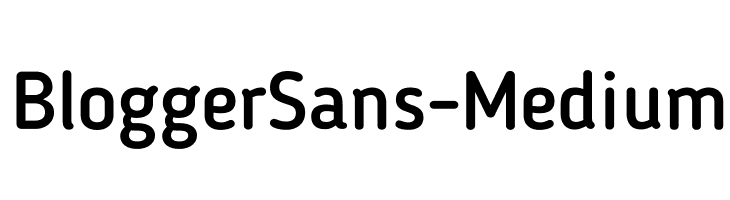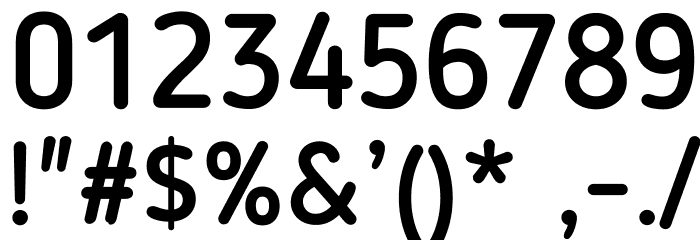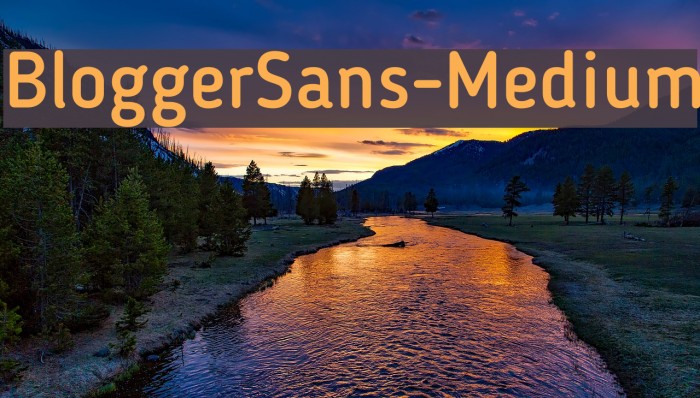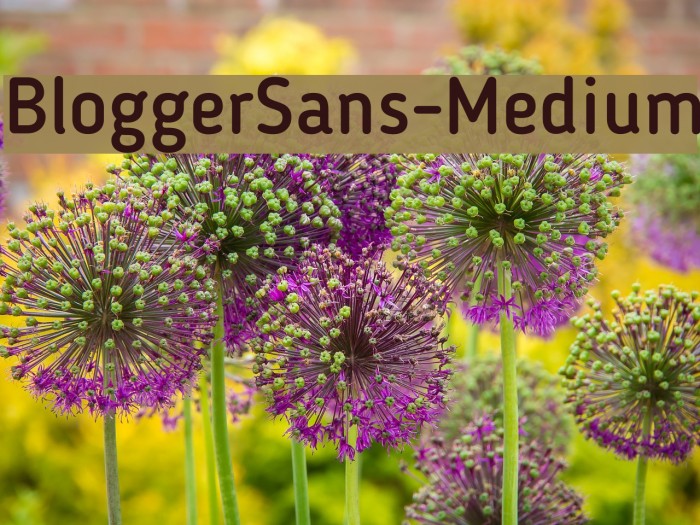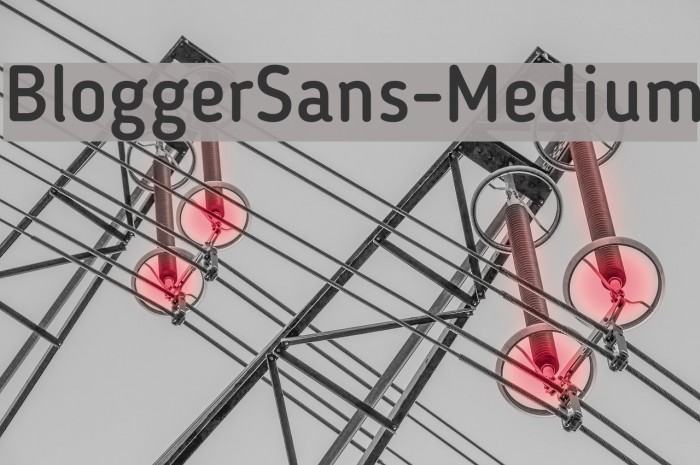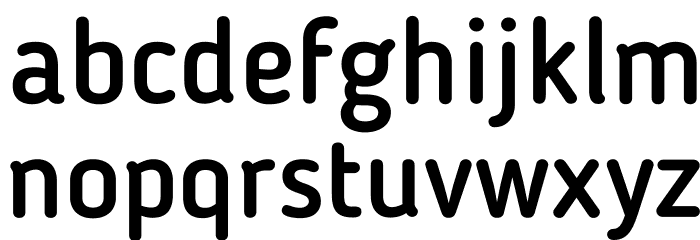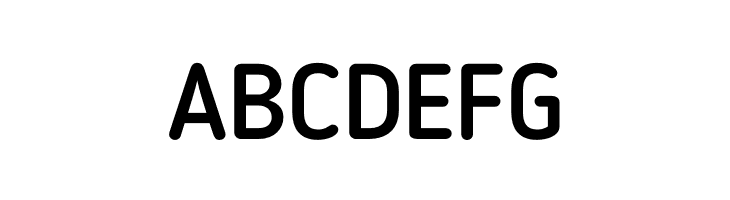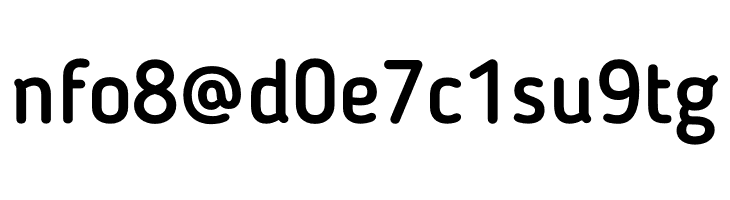
BloggerSans-Medium Font
BloggerSans-Medium Description
This font features a clean and modern sans-serif design with rounded edges that give it a friendly and approachable appearance. The characters are evenly spaced, providing excellent readability across both uppercase and lowercase letters. The numerals are clear and distinct, making them suitable for various applications. The special characters maintain the same rounded style, ensuring consistency throughout the typeface. Its medium weight strikes a balance between light and bold, making it versatile for different design needs.
A modern, rounded sans-serif font with medium weight and excellent readability from Uncategorized fonts.
- Proposed Projects: Ideal for web design, branding, user interfaces, and print materials where a modern and friendly look is desired.